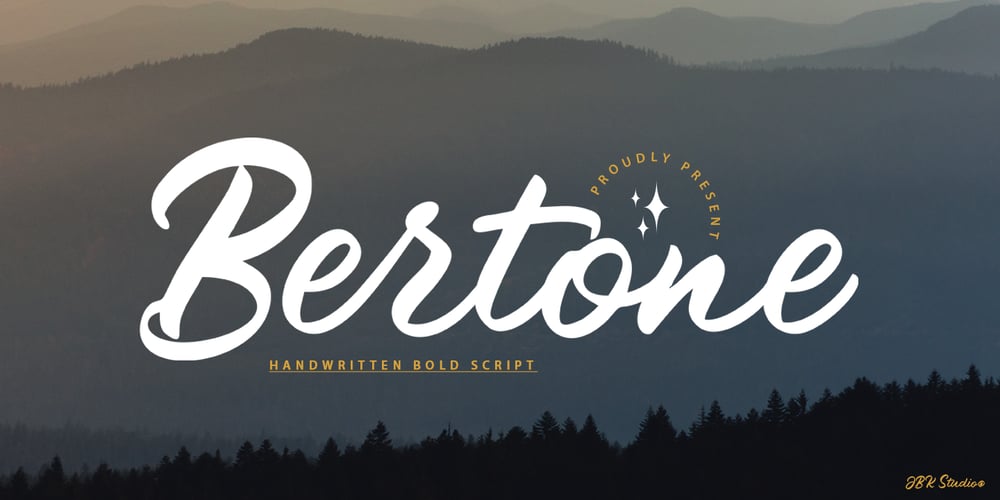
Bertone
Bertone font
Bertone Font Family was designed by Khaled and published by Akifatype. Bertone contains 1 styles and family package options. Bertone is a Natural smooth brush font, organic, dynamic and energetic sytle.Can used for various purposes. such as the title, signature, logo, correspondence, wedding invitations, letterhead, signage, labels, newsletters, posters, badges, etc.Bertone is coded with PUA Unicode, which allows full access to all the extra characters without having special designing software. Mac users can use Font Book , and Windows users can use Character Map to view and copy any of the extra characters to paste into your favourite text editor/app